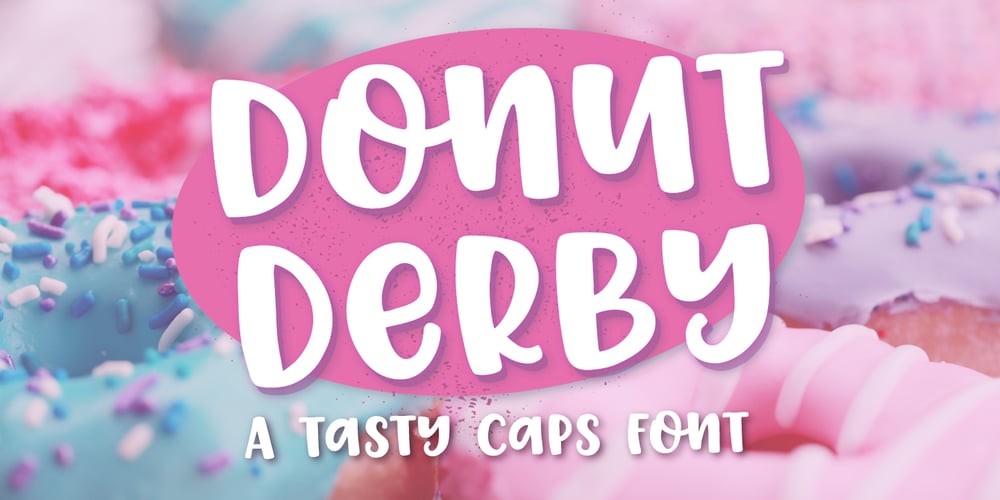
Donut Derby
Donut Derby font
Donut Derby Font Family was designed by Rachel White and published by Rachel White Art. Donut Derby contains 1 styles and family package options. Donut Derby is a playful, hand lettered caps font. It’s got smooth lines, a heavy weight, and cute curves. Mix lower and upper cases for a more authentically hand-lettered look. Includes 5 ampersand alternates, because I like to have lots of options for ampersands. ๐Ÿ™‚